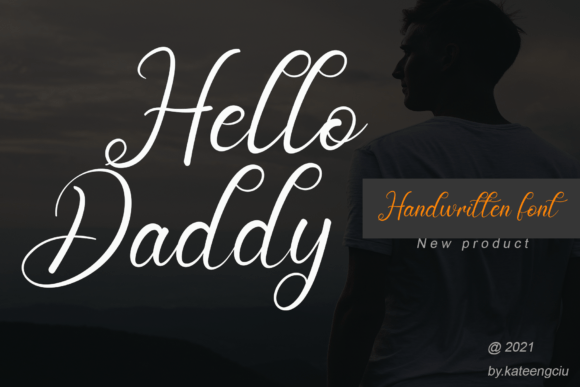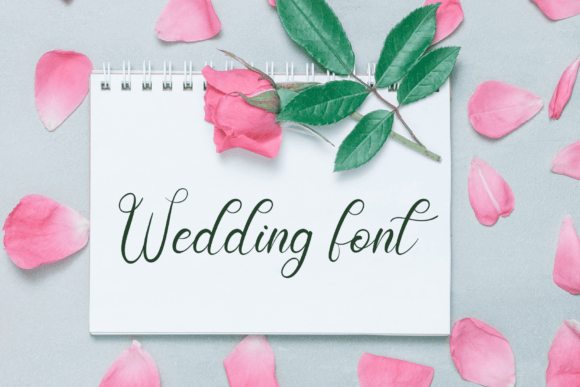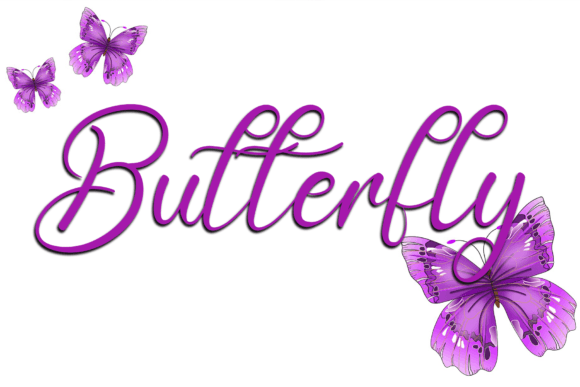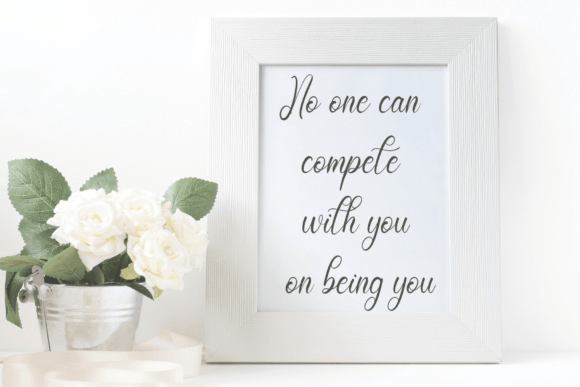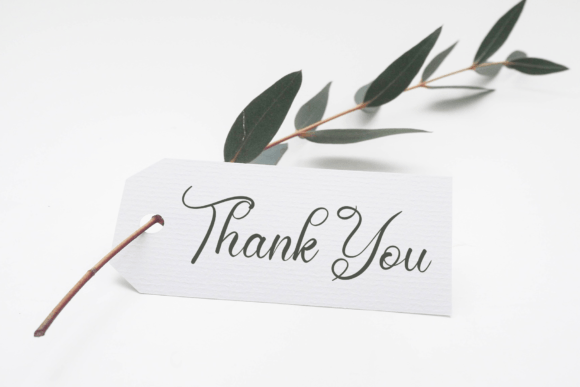
About Hello Daddy Font
“Hello Daddy” is a handwritten typeface that exudes delicacy, grace, and a flowing aesthetic. With its lovely and well-balanced qualities, this font seamlessly complements a wide range of styles, making it a versatile choice for various design applications. By incorporating “Hello Daddy” into your most imaginative thoughts, you’ll witness how it brings a sense of life and charm to your creative ideas.
The delicate strokes and flowing curves of “Hello Daddy” contribute to its graceful aesthetic, creating a handwritten feel that adds a personal touch to your designs. Each letter is carefully crafted, emphasizing the harmonious and visually pleasing nature of this typeface. Whether you’re working on invitations, branding, or any other design project, “Hello Daddy” adds a touch of elegance that enhances the overall visual appeal.
The versatility of “Hello Daddy” allows it to adapt to different styles effortlessly. Its ability to seamlessly integrate with various design elements and themes makes it an ideal choice for expressing creativity across a spectrum of projects. Whether your style is modern and minimalist or detailed and decorative, “Hello Daddy” serves as a versatile canvas for your unique vision.
As you explore the possibilities with “Hello Daddy,” let your most imaginative thoughts come to life. Whether you’re enhancing the warmth of a handwritten note or adding a whimsical touch to branding materials, this handwritten typeface becomes a conduit for a myriad of creative expressions. Embrace the subtle beauty and balance of “Hello Daddy,” allowing it to be the enchanting element that brings your ideas to fruition.
Incorporate “Hello Daddy” into your designs, and experience the delicate, graceful, and flowing characteristics that it imparts. This font goes beyond being a typeface; it becomes a companion in your creative journey, enhancing your projects with the charm and elegance that “Hello Daddy” brings to the table.